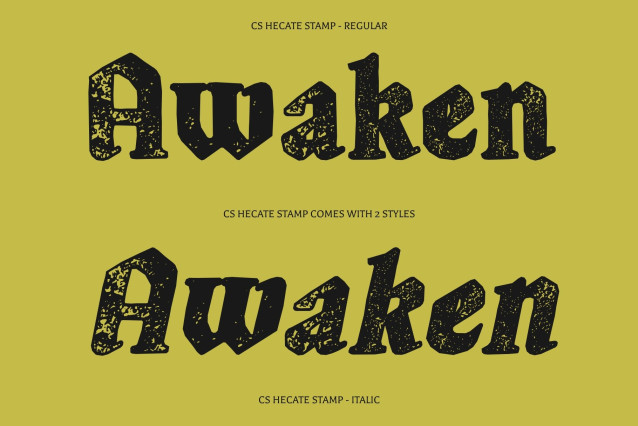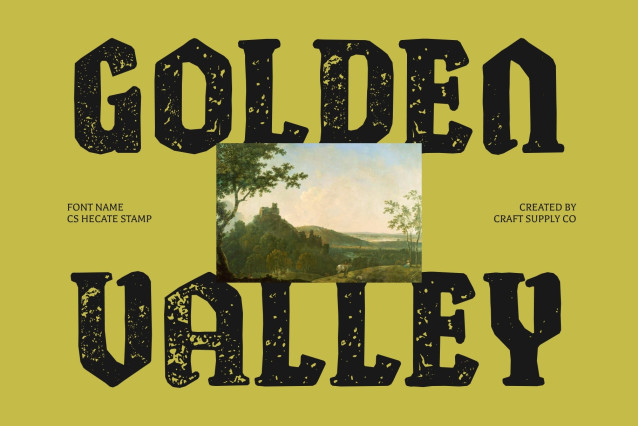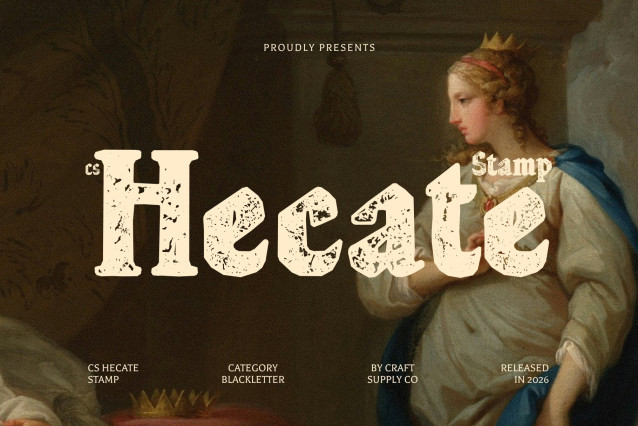
CS Hecate Stamp Font
CS Hecate Stamp – A Bold Tribute to Renaissance Elegance
Renaissance-Inspired Serif with Stamped Texture
This is a striking serif font that blends Renaissance and Gothic influences with a contemporary stamped finish. Its ornate structure and textured impression create a powerful balance between historical grandeur and handcrafted authenticity.
Visual Strength with Historical Depth
Inspired by the richness of the Renaissance era, this font features thick strokes, dramatic contrast, and intricate detailing. The stamp effect enhances its aged, print-like character, adding depth and a sense of timeless craftsmanship to every letterform.
Elegance with Dramatic Presence
This font delivers a commanding visual voice ideal for designs that require authority and sophistication. Its bold structure ensures strong readability, while its decorative roots bring artistic depth and classical refinement.